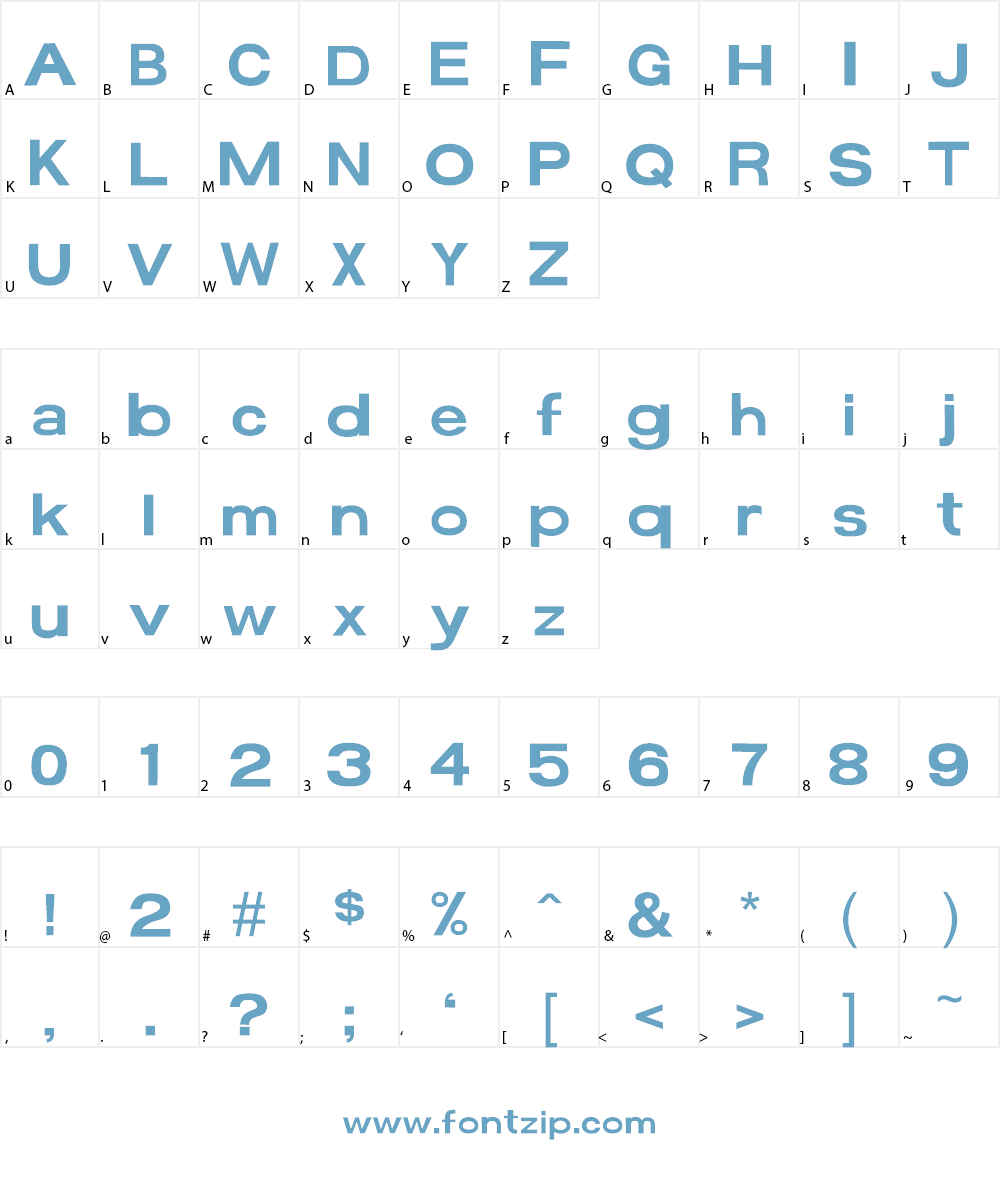
FunZone Three is a font based off the Teapigs logo. I contacted Teapigs what font they use for the logo text "teapigs", and they say "It's not a font, but designed by our team designer!". So yeah, the font for "teapigs" is custom. I decided once again to perfectly remake this font.
ALSO IMPORTANT: I have included Greek characters if you live in Greece.
UPDATE: Added Cyrillic characters for Russian people.